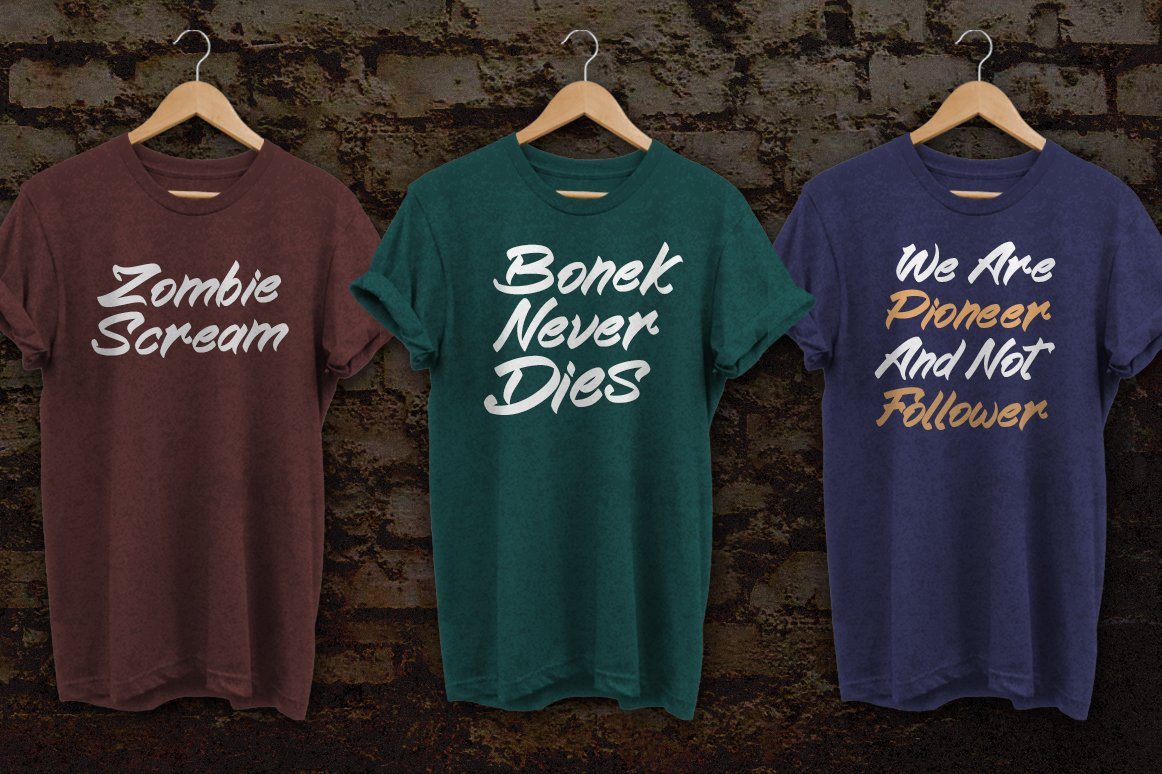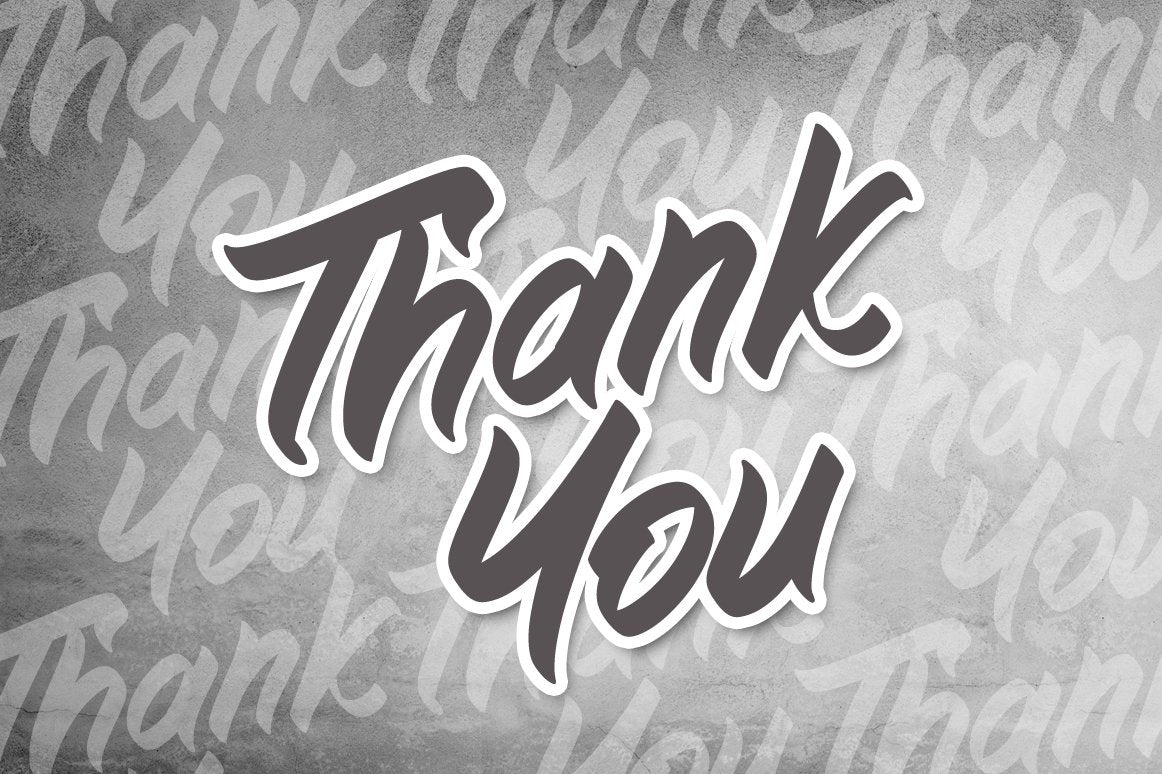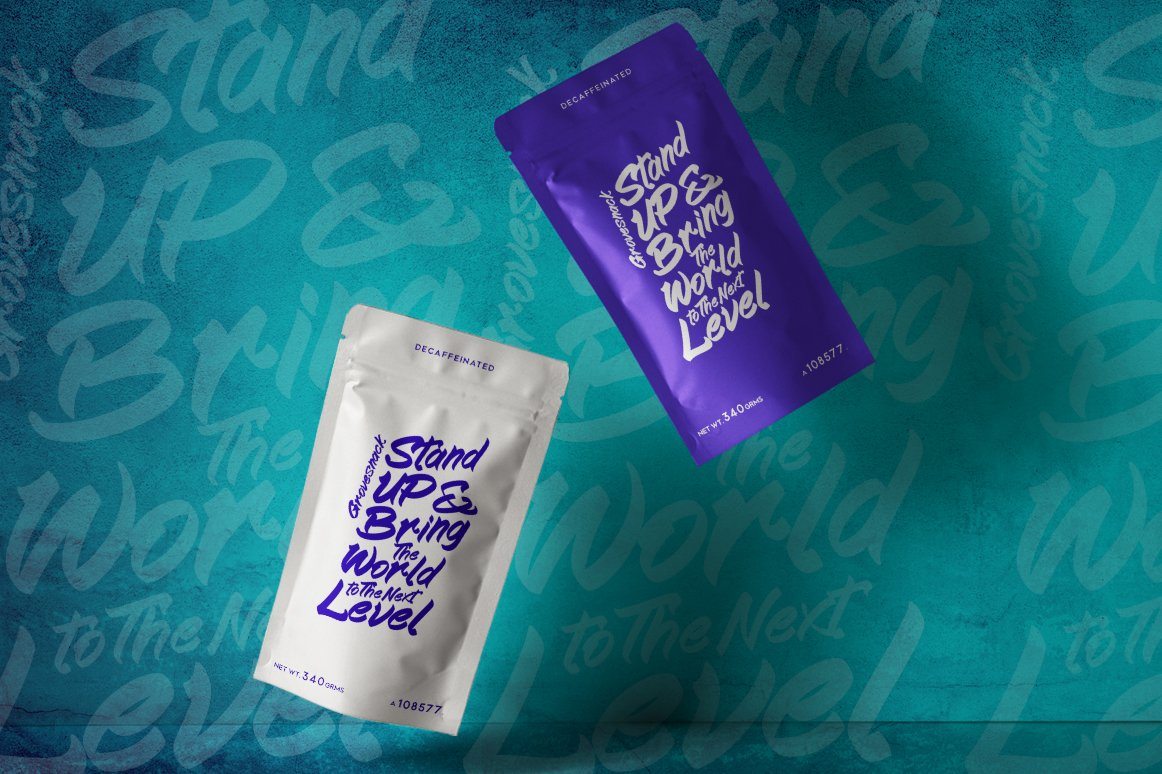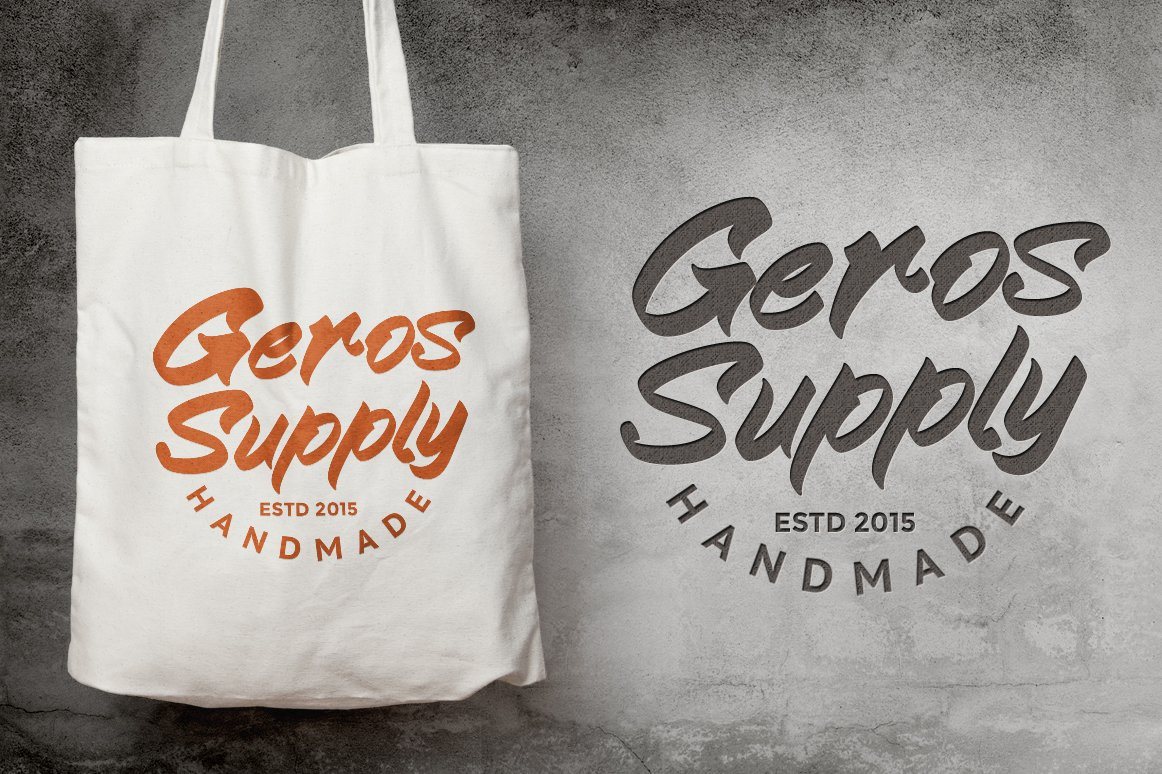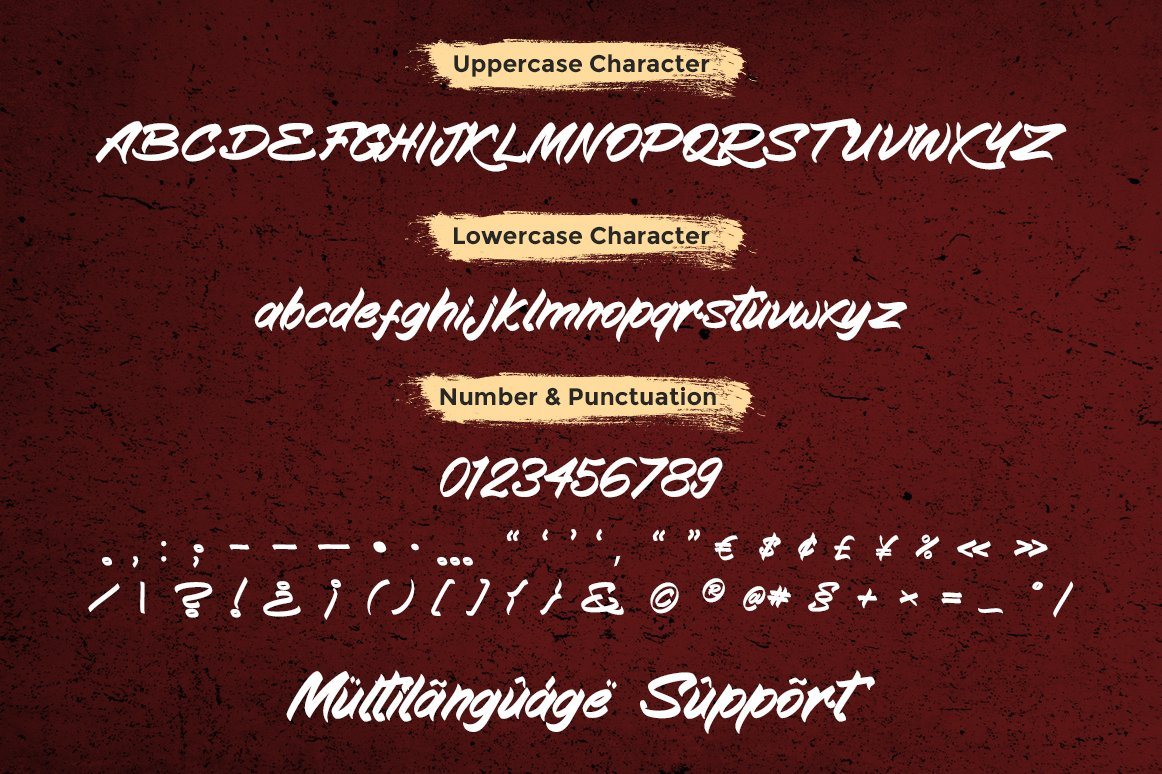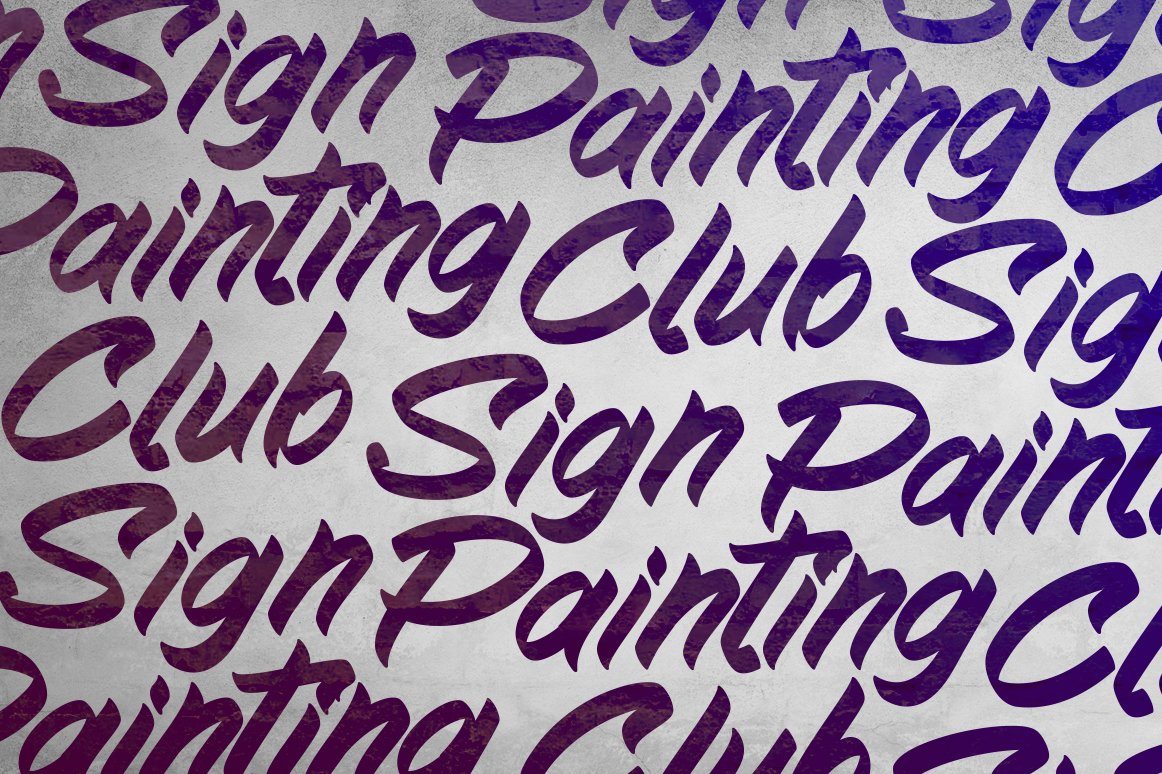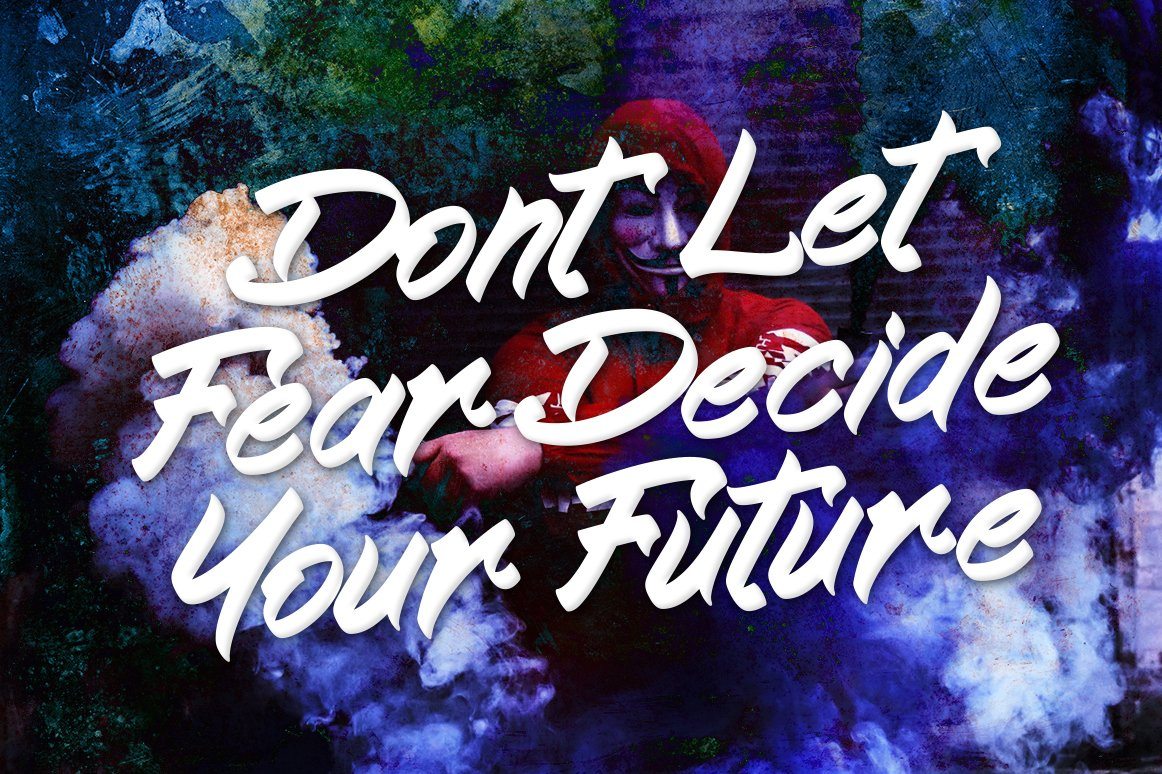
Kampiun Samgor
About Kampiun Samgor
Introducing my new font Kampiun Samgor!!! A casual script font and combination with Hand Lettering style which gives more personal touch and makes the font looks being customized. This font is suitable to use as a logotype, product designs, label, watermark, social media posts, apparel, invitation, signboard, sports club, motor/car, special events or anything that need handwriting taste. What you get: KampiunSamgor.ttf and KampiunSamgor.otf Kampiun Samgor includes capital and lowercase letters, Alternates, and Ligatures Numbers + punctuation Foreign language support I highly recommend using a program that supports OpenType features and Glyphs panels such as Adobe Illustrator, Adobe Photoshop CC, Adobe InDesign, or CorelDraw, so you can see and access all Glyph variations. This font is encoded with Unicode PUA, which allows full access to all additional characters without having special design software. Mac users can use Font Book, and Windows users can use Character Map to view and copy one of the extra characters to paste into your favorite text editor/application. We hope you enjoy the font. Thank You.